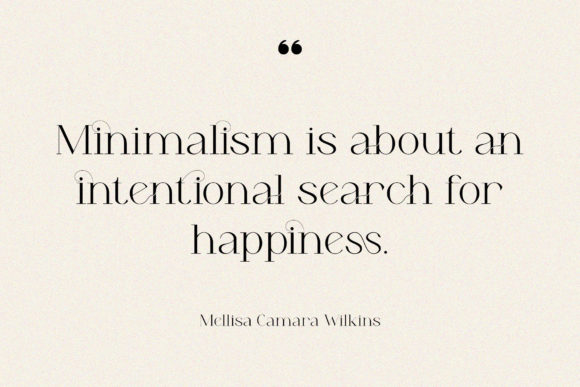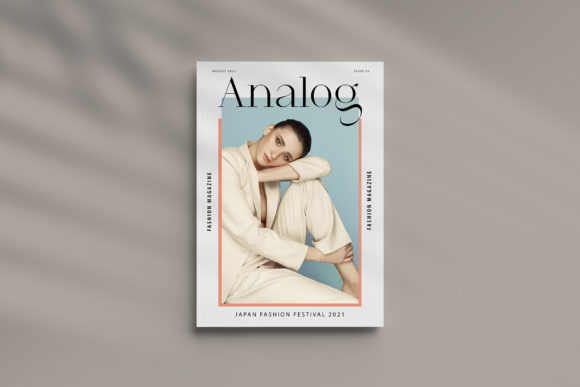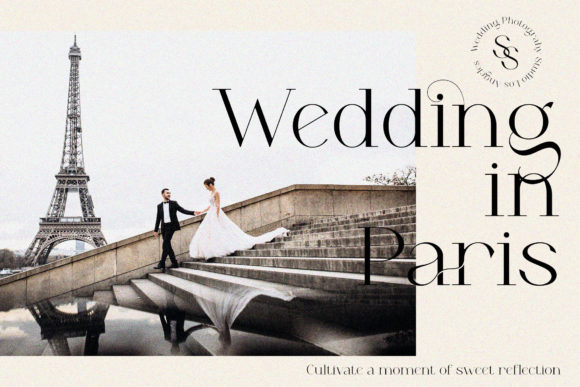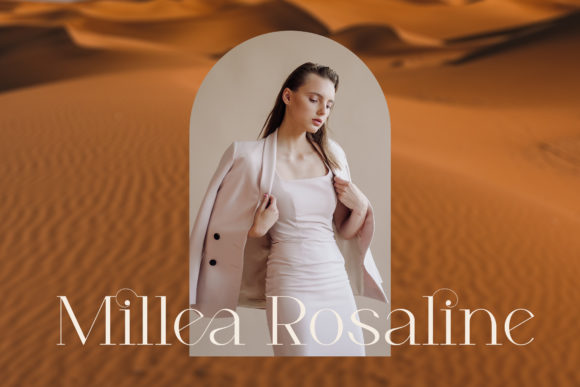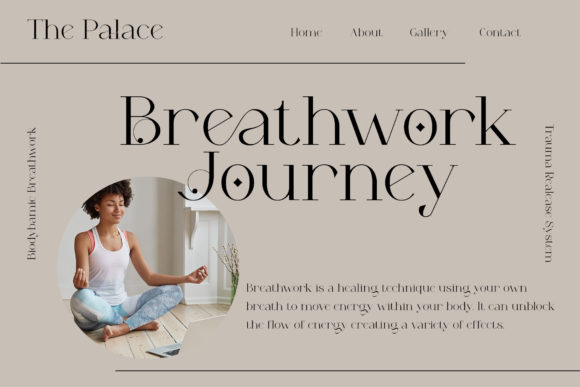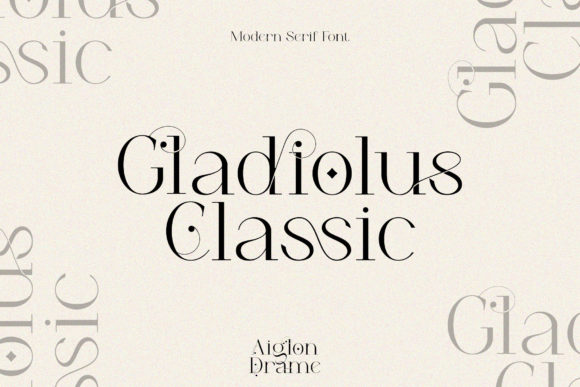
Aiglon Drame Font: Elevate Your Designs with Elegance and Sophistication
In the world of typography, a font can make or break a design. For designers and crafters looking to add a touch of elegance and sophistication to their creations, Aiglon Drame is an excellent choice. This delicate and elegant serif font is designed to elevate your designs and leave a lasting impression. In this article, we’ll explore the features and benefits of Aiglon Drame, and why it’s a must-have for any designer or crafter looking to take their work to the next level.
What is Aiglon Drame?
Aiglon Drame is a beautiful serif font that exudes elegance and refinement. Its delicate lines and intricate details make it perfect for designs that require a touch of sophistication. Whether you’re working on a branding project, a wedding invitation, or a packaging design, Aiglon Drame is sure to impress. The font’s classic and timeless look makes it versatile and easy to pair with other fonts, ensuring that your design will stand the test of time.
PUA Encoding: Easy Access to Glyphs and Ligatures
One of the standout features of Aiglon Drame is its PUA (Private Use Area) encoding. This means that you can access all of the font’s amazing glyphs and ligatures with ease. No more tedious searching for the perfect character or symbol – with Aiglon Drame, you can access everything you need right within the font. This feature makes it easy to add unique and creative touches to your designs, taking them from ordinary to extraordinary.
Features and Benefits of Aiglon Drame
So, what makes Aiglon Drame so special? Here are just a few of the font’s key features and benefits:
- Elegant and refined design: Aiglon Drame’s delicate lines and intricate details make it perfect for designs that require a touch of sophistication.
- PUA encoded: Easy access to all glyphs and ligatures, making it simple to add unique touches to your designs.
- Versatile: Pair Aiglon Drame with other fonts to create a unique and cohesive look.
- Timeless: The font’s classic design ensures that your work will stand the test of time.
How to Use Aiglon Drame in Your Designs
Using Aiglon Drame in your designs is easy. Here are a few tips to get you started:
- Pair it with a sans-serif font: Create a beautiful contrast by pairing Aiglon Drame with a clean and modern sans-serif font.
- Use it for headings and titles: Aiglon Drame’s elegant design makes it perfect for headings and titles.
- Experiment with glyphs and ligatures: Take advantage of Aiglon Drame’s PUA encoding to add unique touches to your designs.
In conclusion, Aiglon Drame is a beautiful and elegant serif font that’s perfect for designers and crafters looking to add a touch of sophistication to their creations. With its PUA encoding and versatile design, Aiglon Drame is a must-have for anyone looking to elevate their designs and take their work to the next level. So why wait? Add Aiglon Drame to your font collection today and see the amazing results for yourself.
Whether you’re a seasoned designer or just starting out, Aiglon Drame is a font that’s sure to impress. Its timeless design and elegant look make it perfect for a wide range of design projects, from branding and packaging to wedding invitations and more. So go ahead, get creative with Aiglon Drame, and see the magic happen!